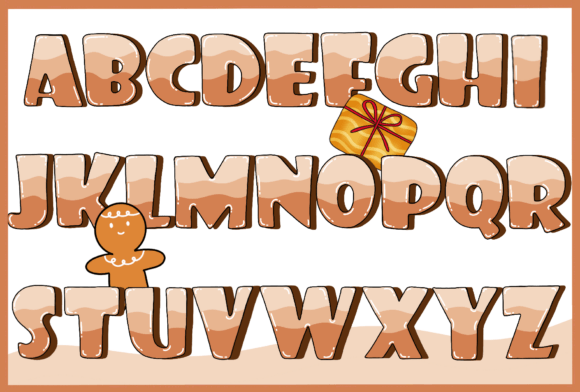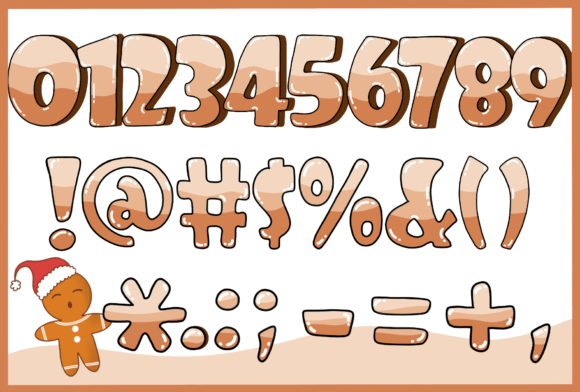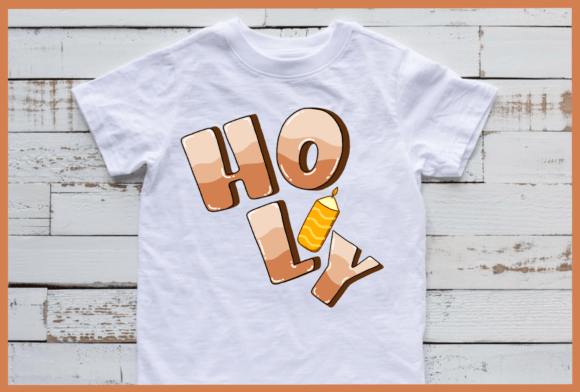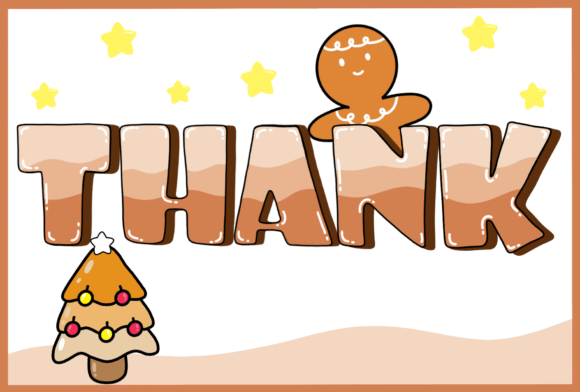
Ginger Bread Font: A Deliciously Warm and Colorful Addition to Your Design Projects
Are you looking for a font that exudes warmth and coziness? Look no further than the Ginger Bread Font! This delightful font features a lovely ginger color pattern that is sure to add a touch of sweetness to your design projects. Whether you’re working on festive projects, baking themes, or simply want to add a dash of warmth to your designs, the Ginger Bread Font is the perfect choice.
A Font that’s Perfect for Festive Projects
The Ginger Bread Font is a seasonal font that’s perfect for festive projects, such as holiday cards, invitations, and decorations. Its warm and colorful design evokes feelings of coziness and comfort, making it ideal for winter-themed projects. The font’s ginger color pattern is reminiscent of gingerbread men and warm spices, making it a great fit for holiday designs.
A Guide to Using the Ginger Bread Font
To get the most out of the Ginger Bread Font, here are a few tips and tricks to keep in mind:
- Use the font for festive projects, such as holiday cards, invitations, and decorations.
- Pair the font with other warm and cozy design elements, such as illustrations of gingerbread men, snowflakes, or hot chocolate.
- Don’t be afraid to get creative and try new things! The Ginger Bread Font is a versatile font that can be used in a range of design projects.
Why Choose the Ginger Bread Font?
So why choose the Ginger Bread Font for your design projects? Here are just a few reasons:
- Its warm and colorful design is sure to add a touch of coziness to your projects.
- It’s perfect for festive projects, baking themes, or anything that needs a touch of warmth.
- It’s a unique and eye-catching font that’s sure to stand out in a crowd.
In conclusion, the Ginger Bread Font is a deliciously warm and colorful addition to any design project. Its cozy and sweet design makes it perfect for festive projects, baking themes, or anything that needs a touch of warmth. With its compatibility with a range of design programs, including Cricut Design Space, PhotoShop, Illustrator, Silhouette, and Inkscape, you can use the Ginger Bread Font to create a wide range of designs. So why not give it a try and see how it can add a touch of warmth and coziness to your designs?